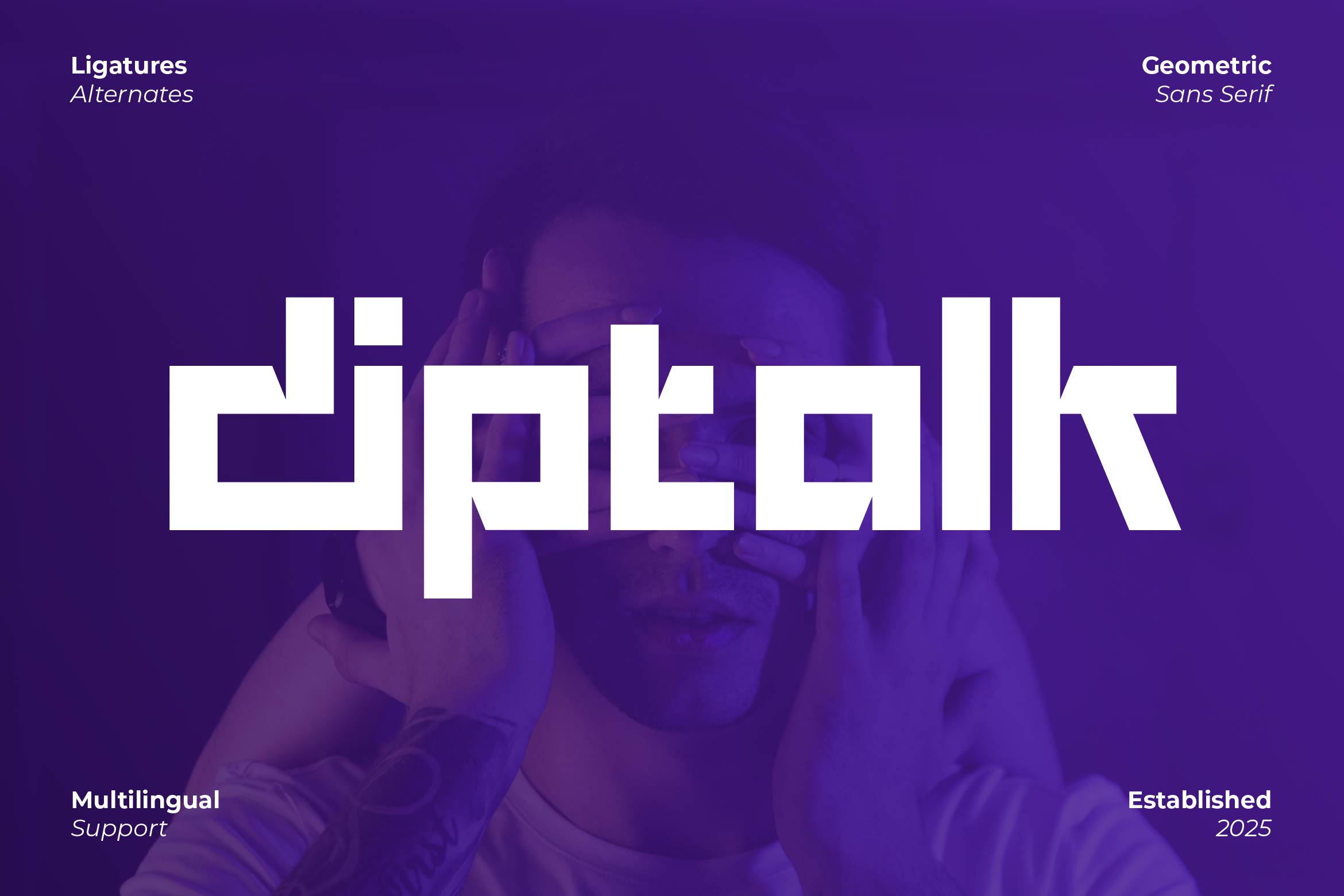
- Diptalk Technology Display Font
Diptalk is a sleek and contemporary sans serif font created specifically for impactful logo design and strong brand identities. Featuring clean lines, geometric structure, and balanced proportions, Diptalk delivers a professional and modern look that ensures your brand stands out in any medium.
Perfect for wordmarks, packaging, social media graphics, web design, and editorial titles, Diptalk combines simplicity with sophistication, making it versatile for a wide range of industries including fashion, tech, lifestyle, and creative agencies.
The font includes uppercase and lowercase letters, numerals, punctuation, multilingual support, and stylistic alternates for enhanced customization and unique branding expression.
Build a powerful and timeless identity with Diptalk — the modern logo font that blends precision, minimalism, and bold elegance.